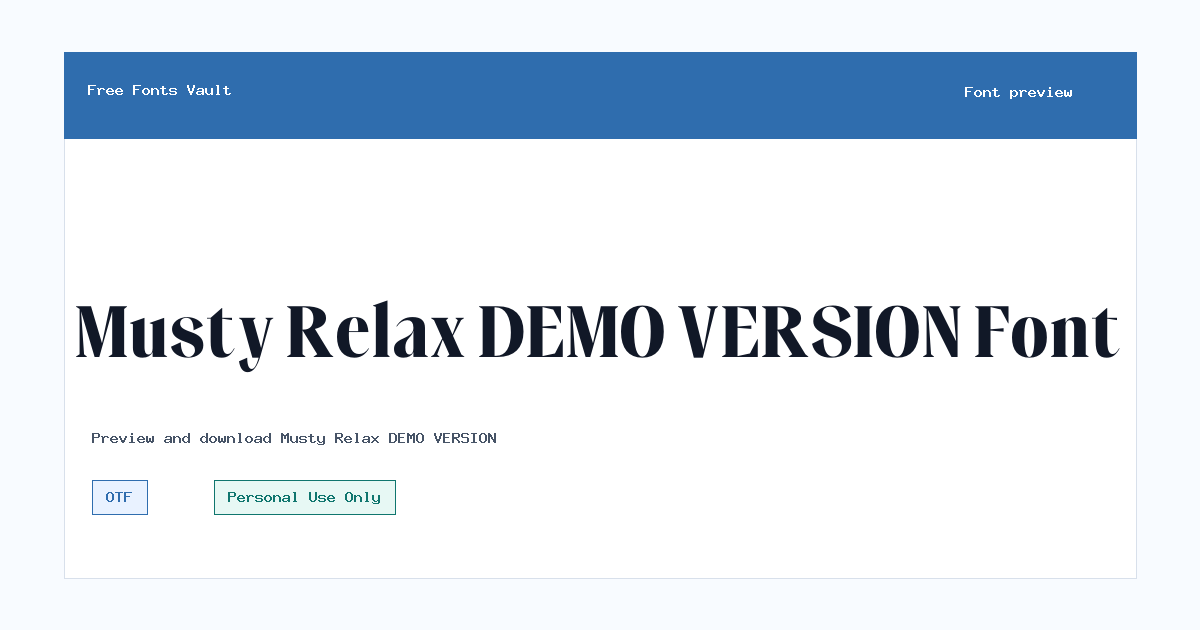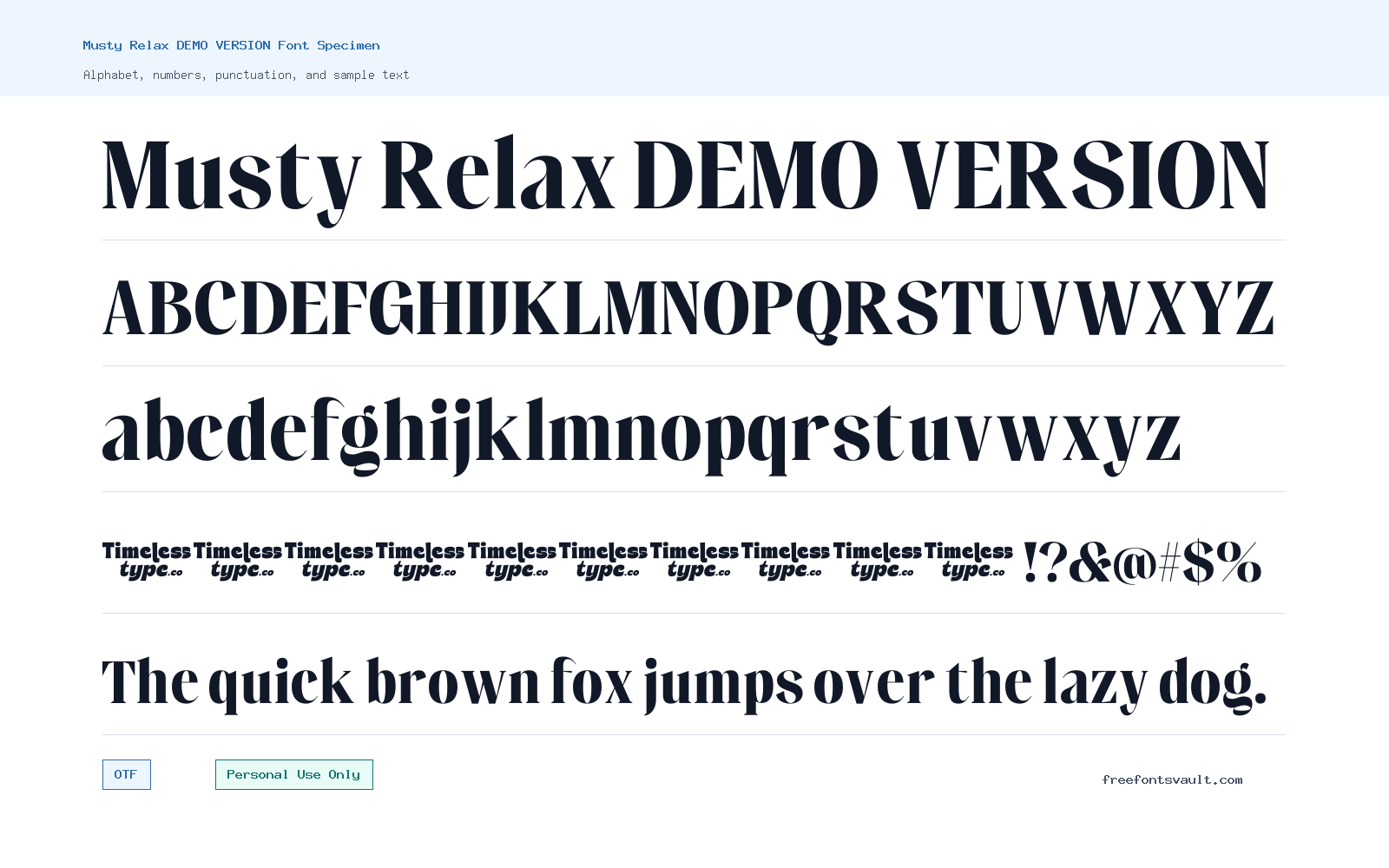
Musty Relax DEMO VERSION
- Designer Heru Utama Putra
- Foundry TimelessType
Musty Relax DEMO VERSION font.
Musty Relax DEMO VERSION is a personal-use font from Heru Utama Putra and TimelessType. It is offered as an OTF regular style, making it easy to test in common design apps before deciding whether it fits your project.
About Musty Relax DEMO VERSION
Musty Relax DEMO VERSION is best treated as a display-focused serif font rather than a body-text workhorse. The name and license information identify it as a demo version, so it is most useful for previewing the style, testing sample words, and building personal drafts. Try it with the exact text you plan to use: brand names, short headings, invitation lines, cover titles, or social graphics. Display fonts can feel very different at 24 px, 72 px, and poster size, so the preview step matters.
For design work, start with short pieces of text. A font like this is usually more effective when it has space around it and does not have to carry long paragraphs. Test uppercase and lowercase combinations, punctuation, numbers, and any accented characters you need before using it in a finished layout. If you are exploring logo ideas, create several mockups with different letter spacing and sizes, then check whether the word shape still feels balanced when viewed small. For posters and web mockups, pair it with a plain sans serif or a quiet text serif so the headline remains the focus.
- Serif-style presentation based on the available font/license description.
- Single regular style with normal weight, so layout testing should account for the lack of extra weights or italics.
- Works best for short display text where spacing, size, and contrast can be adjusted carefully.
- Personal logo concepts and early brand exploration
- Poster titles, quote graphics, and editorial-style headings
- Invitation drafts, cards, and decorative personal projects
- Website hero mockups and typography experiments
- Social media graphics that use short, readable text
The font is credited to Heru Utama Putra, with TimelessType listed as the foundry. The related website is TimelessType.co.
Who designed Musty Relax DEMO VERSION?
The font is credited to Heru Utama Putra, with TimelessType listed as the foundry.
What style is included?
The available variant is a regular style with normal weight. No extra weights or italic styles are listed.
What is this font best used for?
Use it for personal display work such as title designs, poster drafts, invitation concepts, logo experiments, and web mockups. Test it carefully before using it in long text.
What should I pair it with?
Pair it with a simple sans serif or a restrained text font. Let Musty Relax DEMO VERSION handle the headline or focal word, and use the companion font for body text and details.